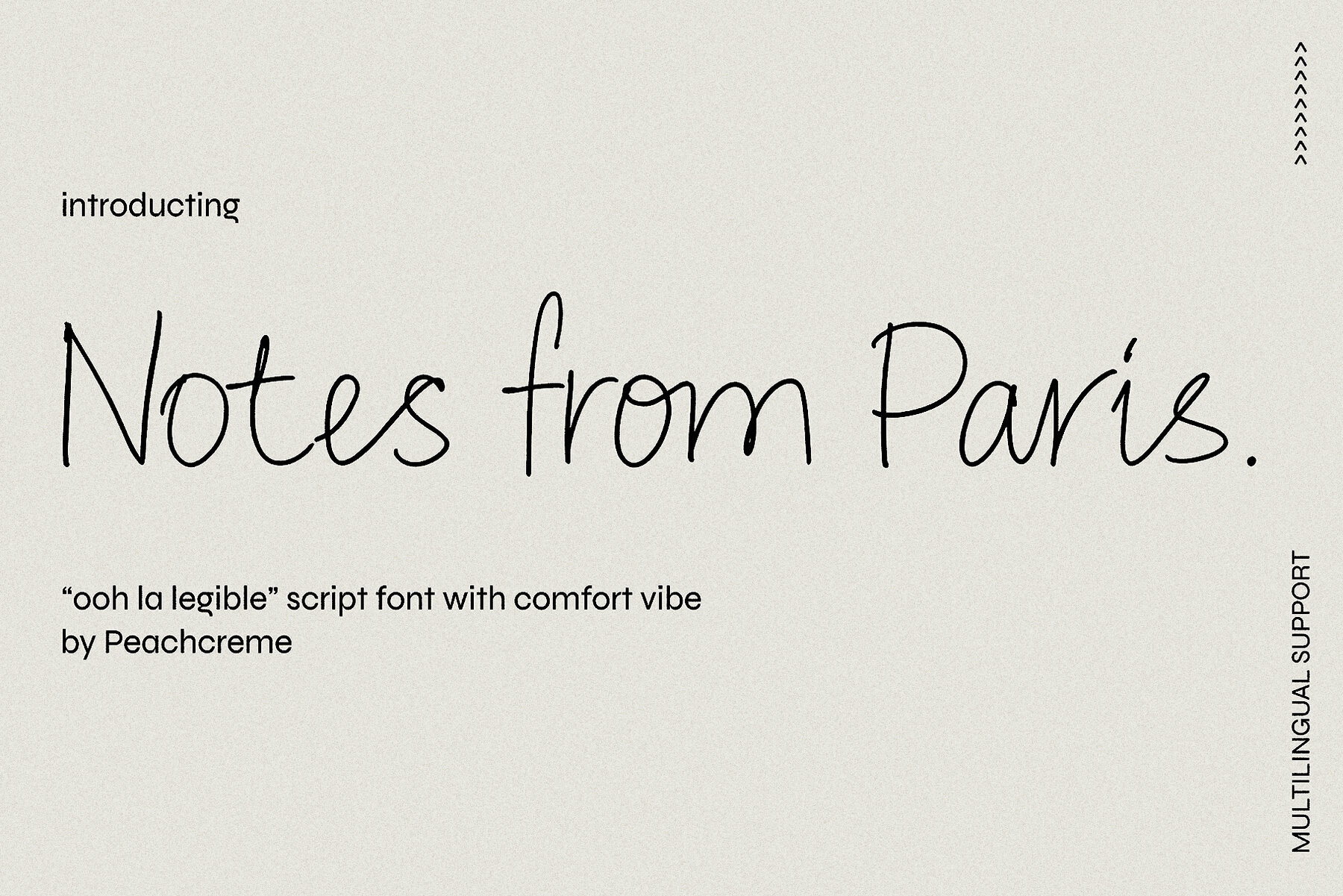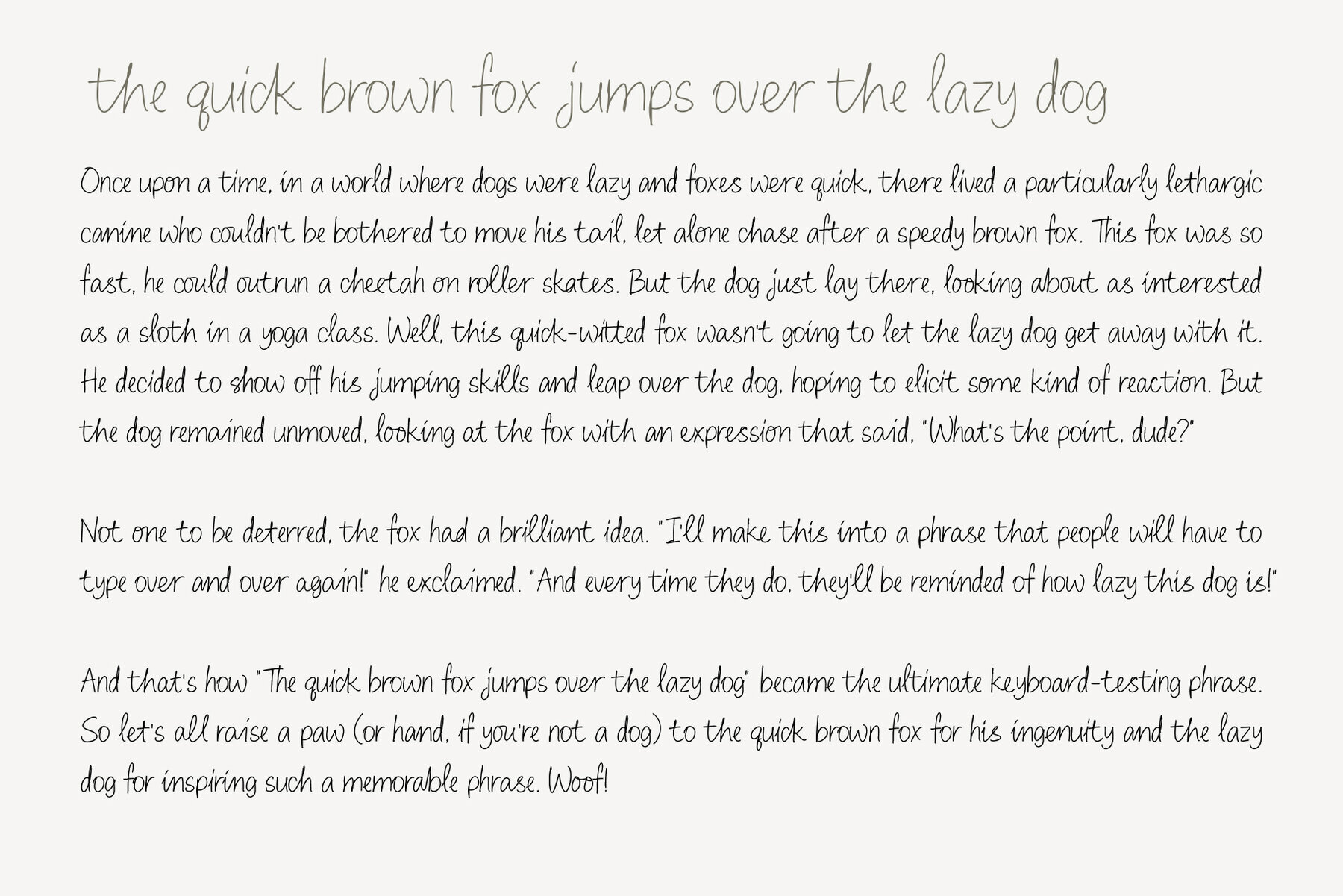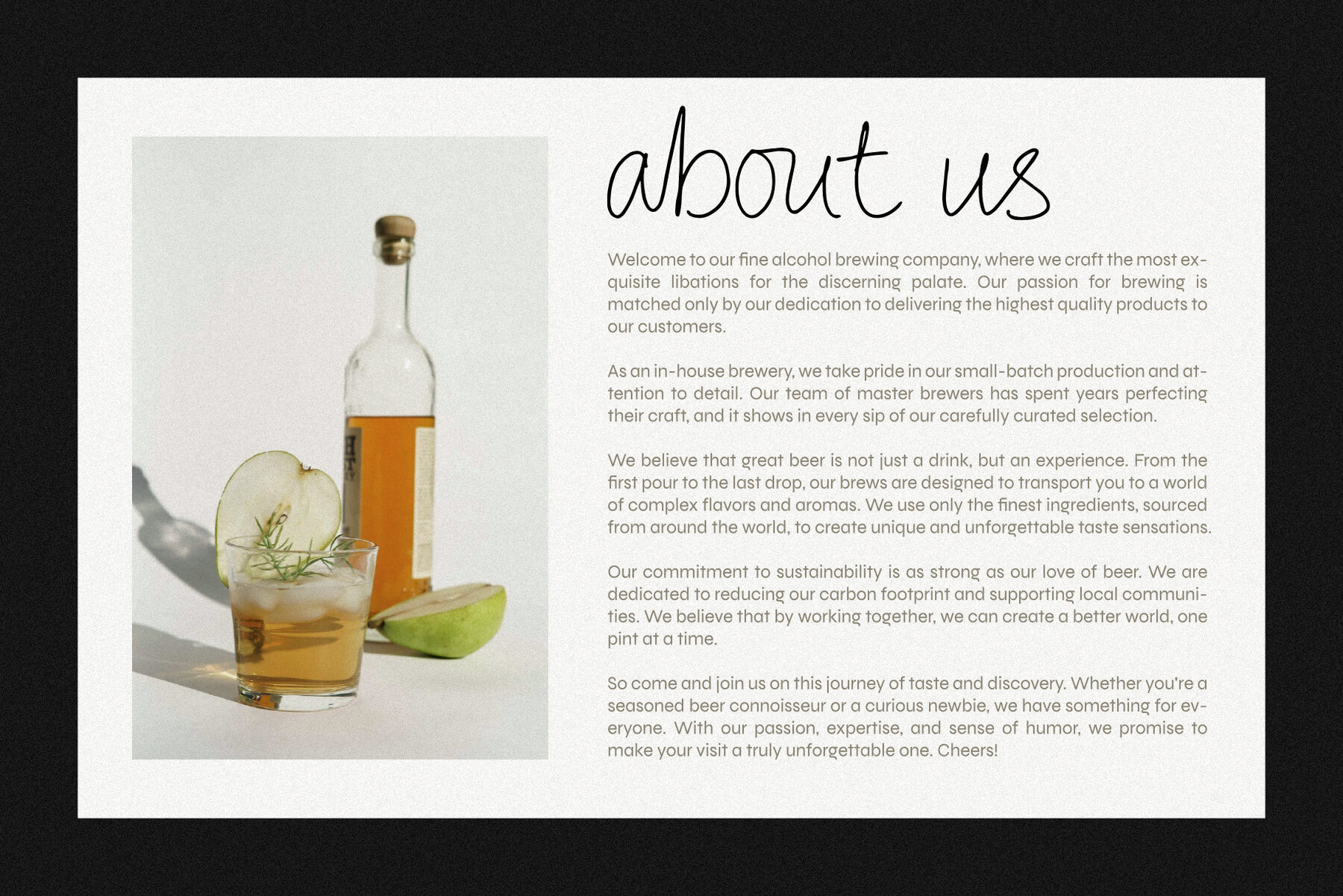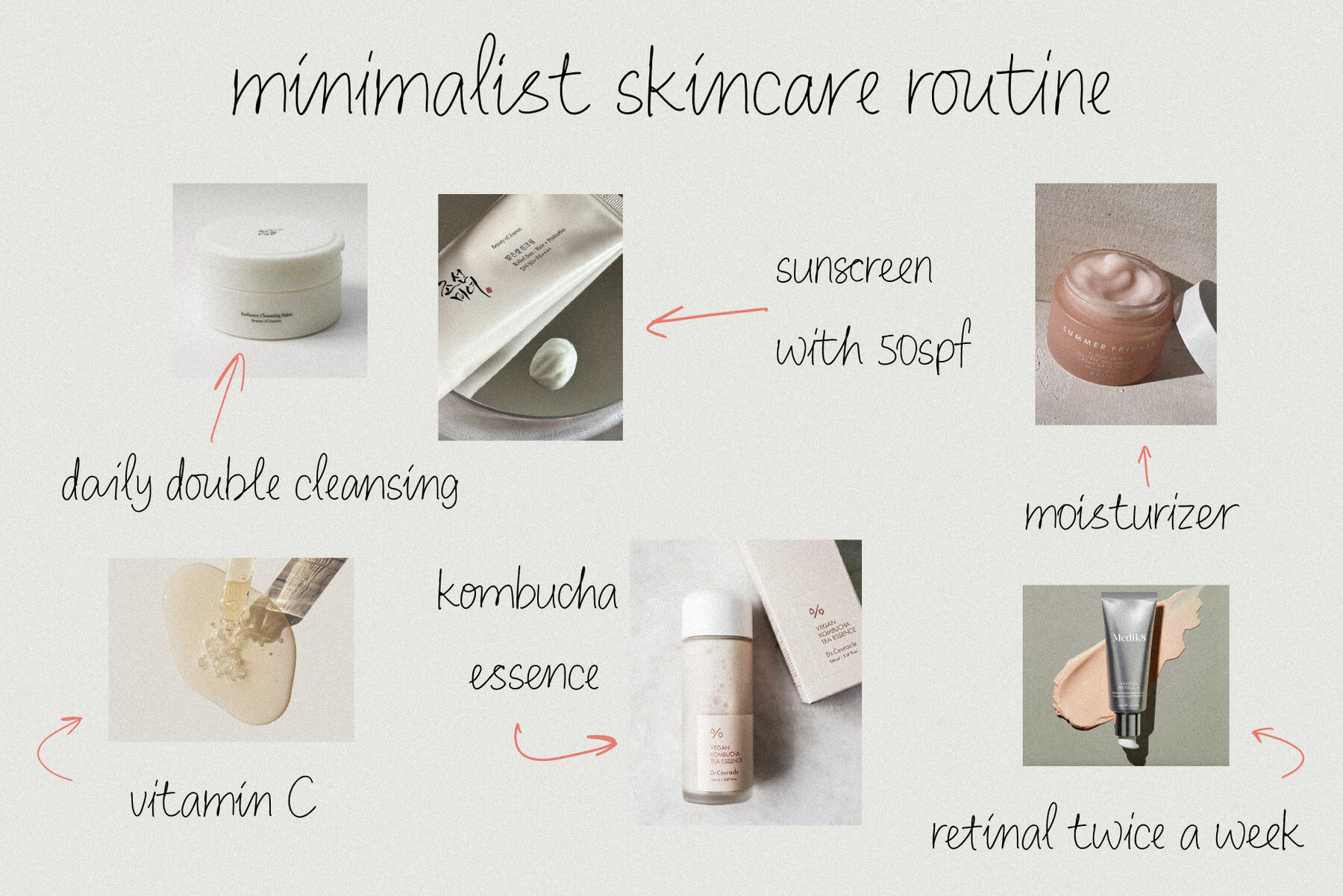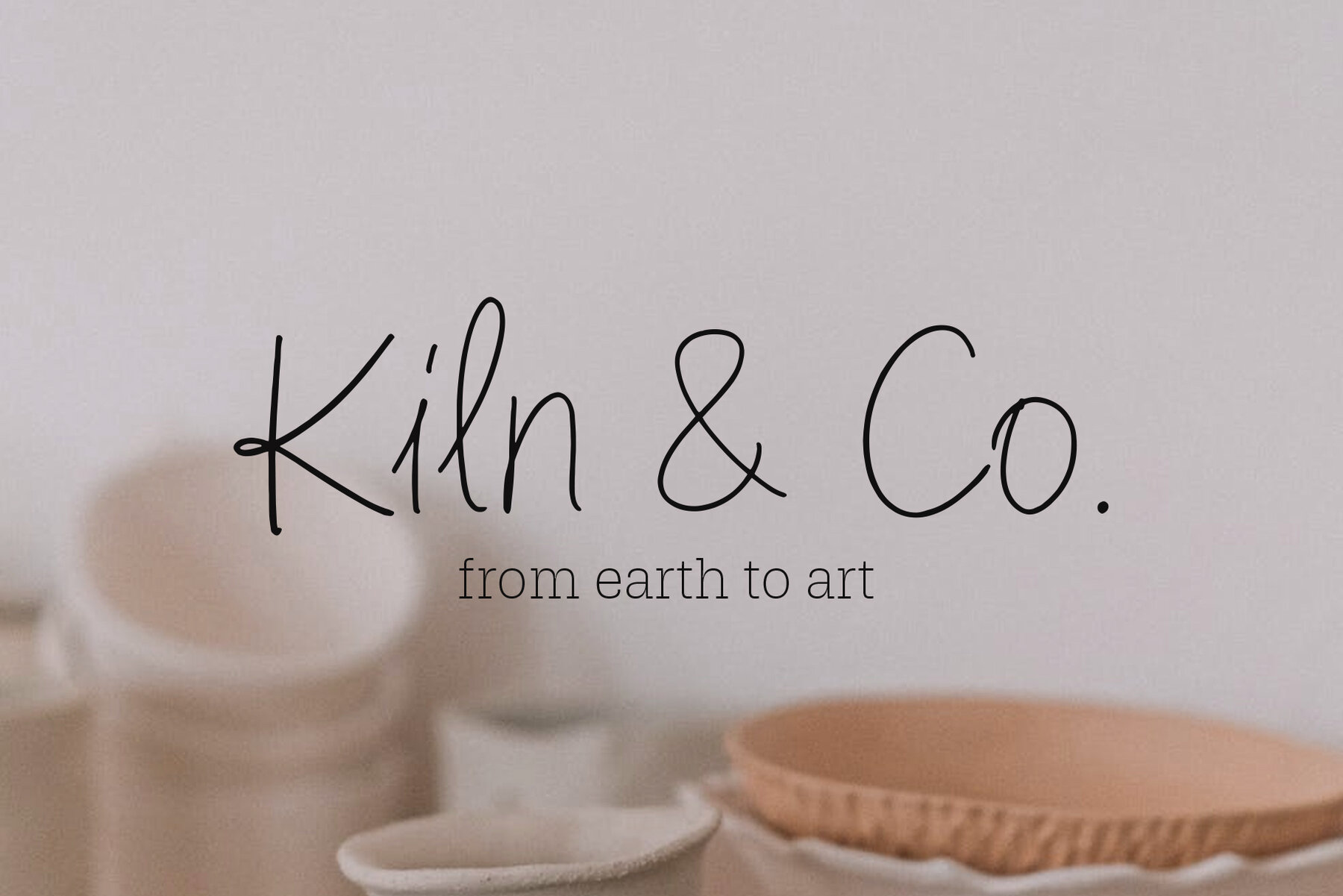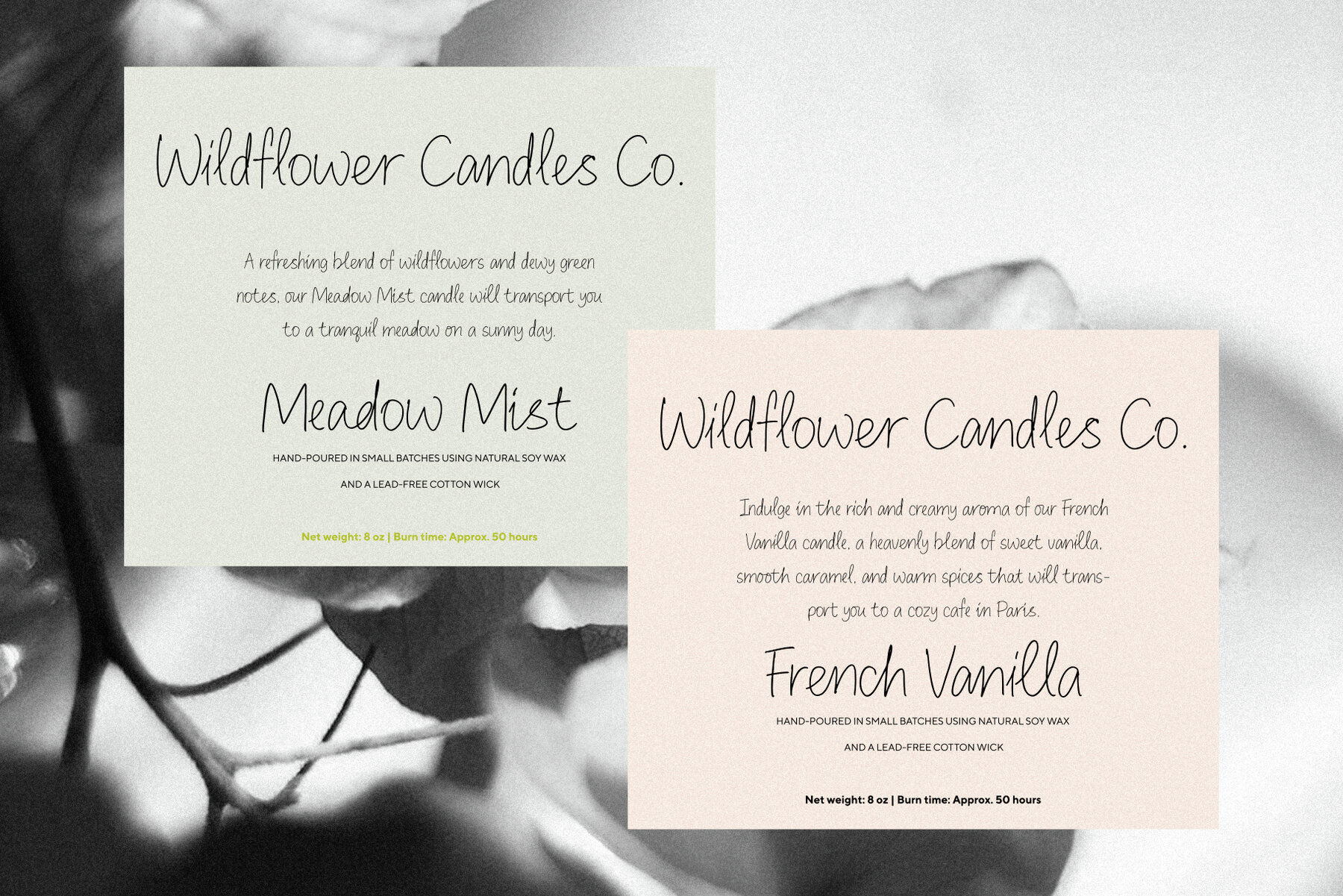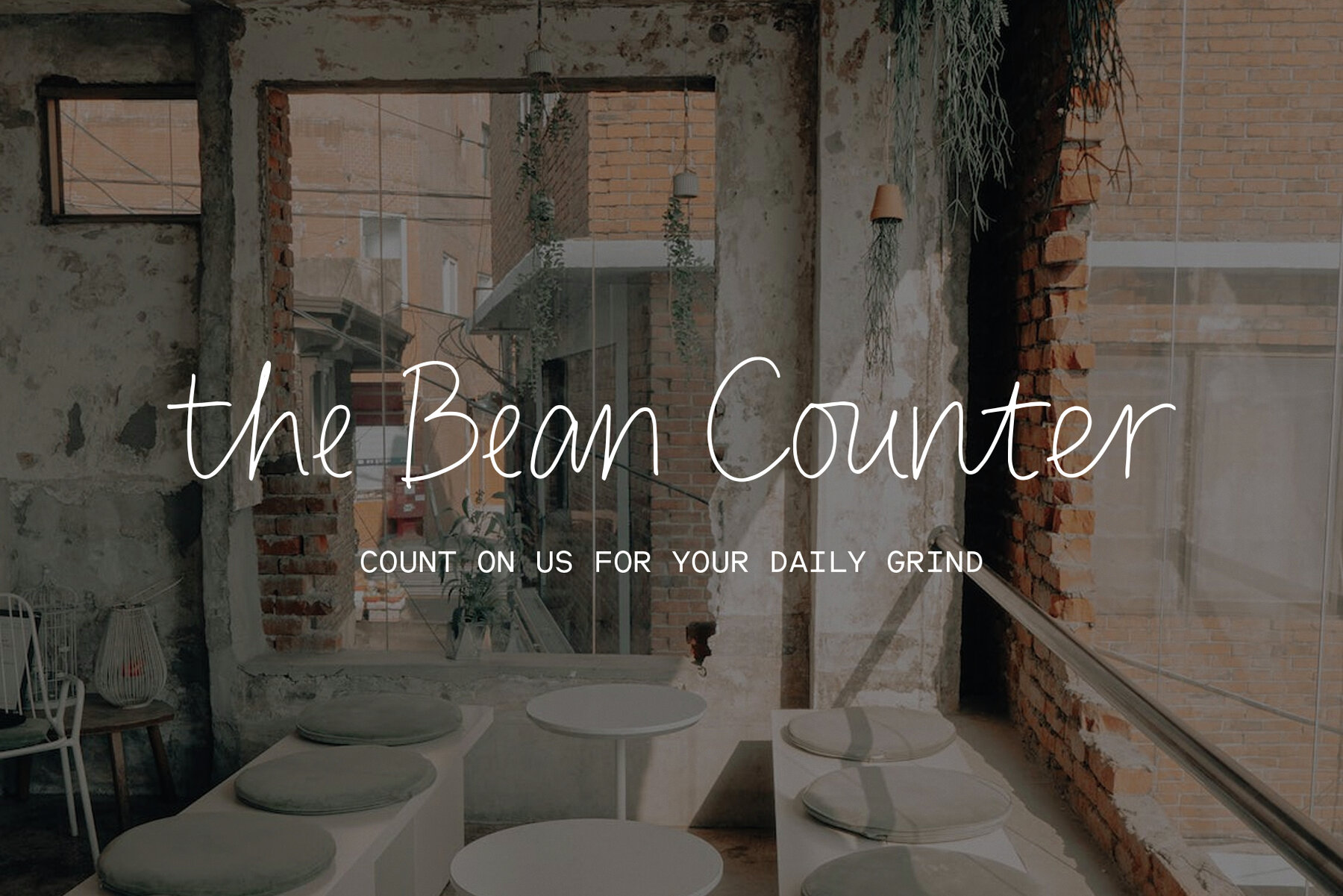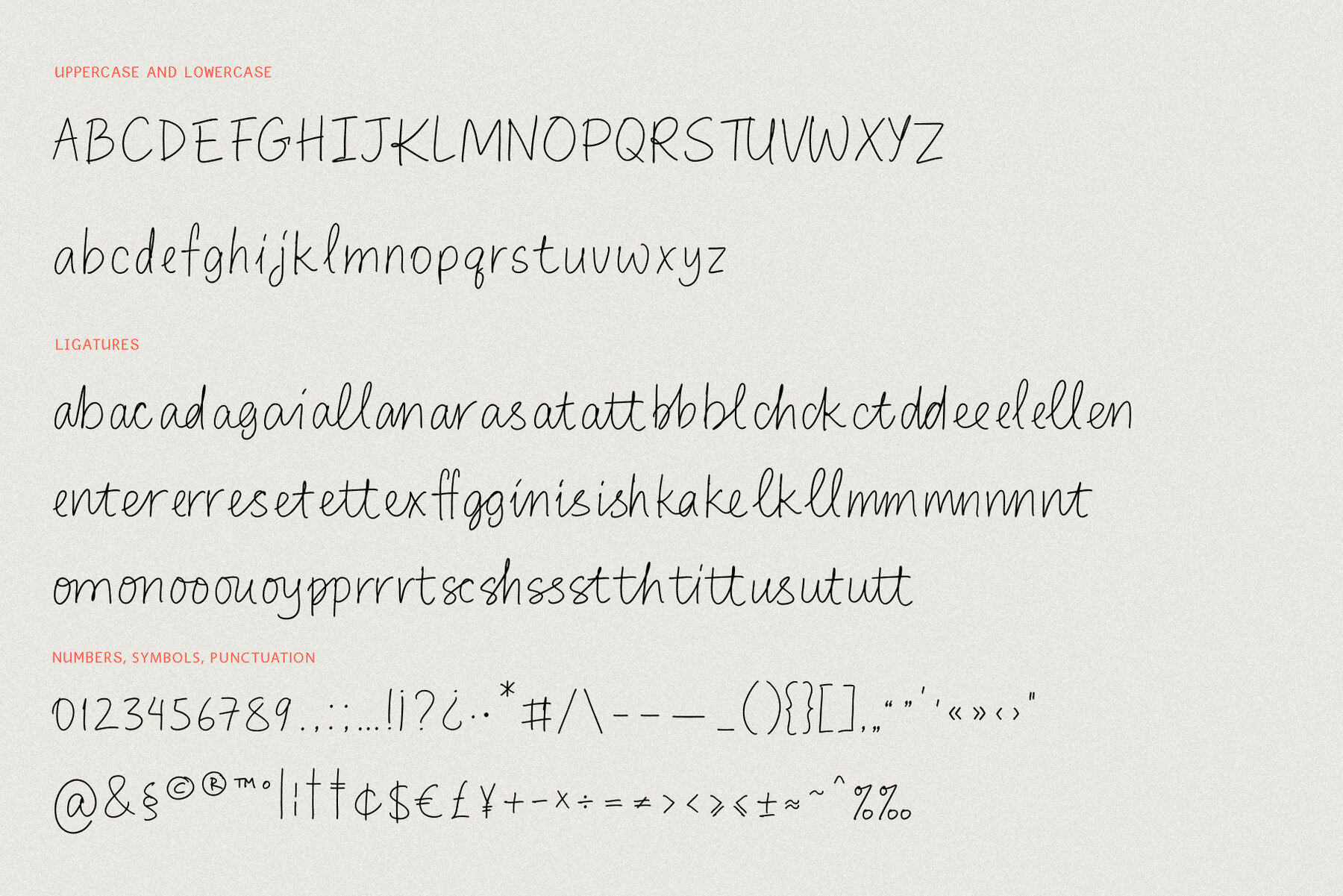
Notes from Paris
"Notes from Paris" brings a chic, yet functional style to your lettering projects. Its easy-to-read letterforms and comforting vibes provide a relaxed elegance to any text. The font flows smoothly and effortlessly, capturing the essence of a summer day in Paris, making it a perfect choice for various design applications, from logos to wedding invitations.
Featuring 59 Opentype ligatures, this font seamlessly blends the qualities of script and handwritten styles, ensuring a natural and genuine feel in your text. Whether you're designing for print or digital media, "Notes from Paris" offers a unique aesthetic that enhances readability while adding a sophisticated touch to your typographic journey.